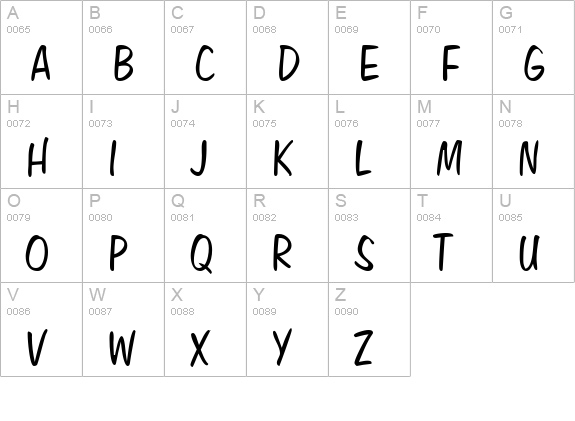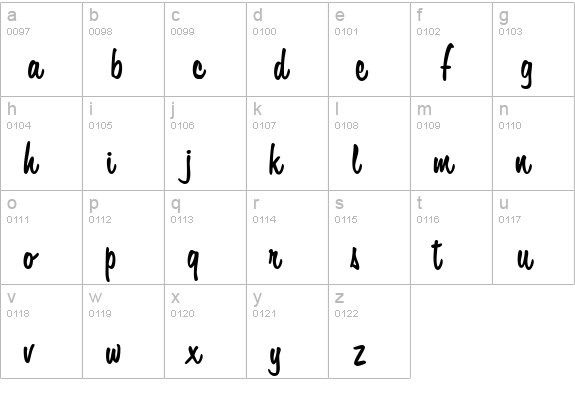
Secrets Font Details
Introducing Secrets font, a captivating and versatile typeface that will add a touch of mystery and elegance to your designs. This exquisite font combines the perfect balance of modernity with a hint of vintage charm, making it ideal for a wide range of creative projects. With its graceful curves, intricate details, and unique letterforms, Secrets font will effortlessly transform your designs into works of art. Whether you're designing a logo, creating stunning invitations, crafting beautiful posters, or adding a touch of sophistication to your website, this font is sure to captivate and inspire. One of the most remarkable aspects of Secrets font is that it is free to download. That's right, you can enhance your designs with this exquisite font without spending a dime. Simply head over to FontsMarket.com and easily access the Secrets font to bring your creative visions to life. Embrace the allure of Secrets font as it effortlessly combines elegance and versatility. Its wide range of weights and styles allows you to experiment and find the perfect fit for your project, whether you're aiming for a bold and commanding statement or a delicate and refined touch. With Secrets font, the possibilities are endless. From branding and packaging to editorial design and beyond, this font will elevate your creations to new heights. Its timeless appeal and attention to detail will ensure that your designs stand out from the crowd and leave a lasting impression. So go ahead, unleash your creativity and download Secrets font today, absolutely free at FontsMarket.com. Let this enchanting typeface become your secret weapon in creating visually stunning and memorable designs.